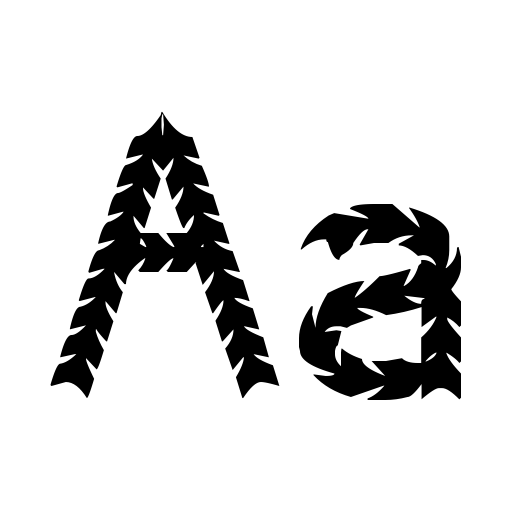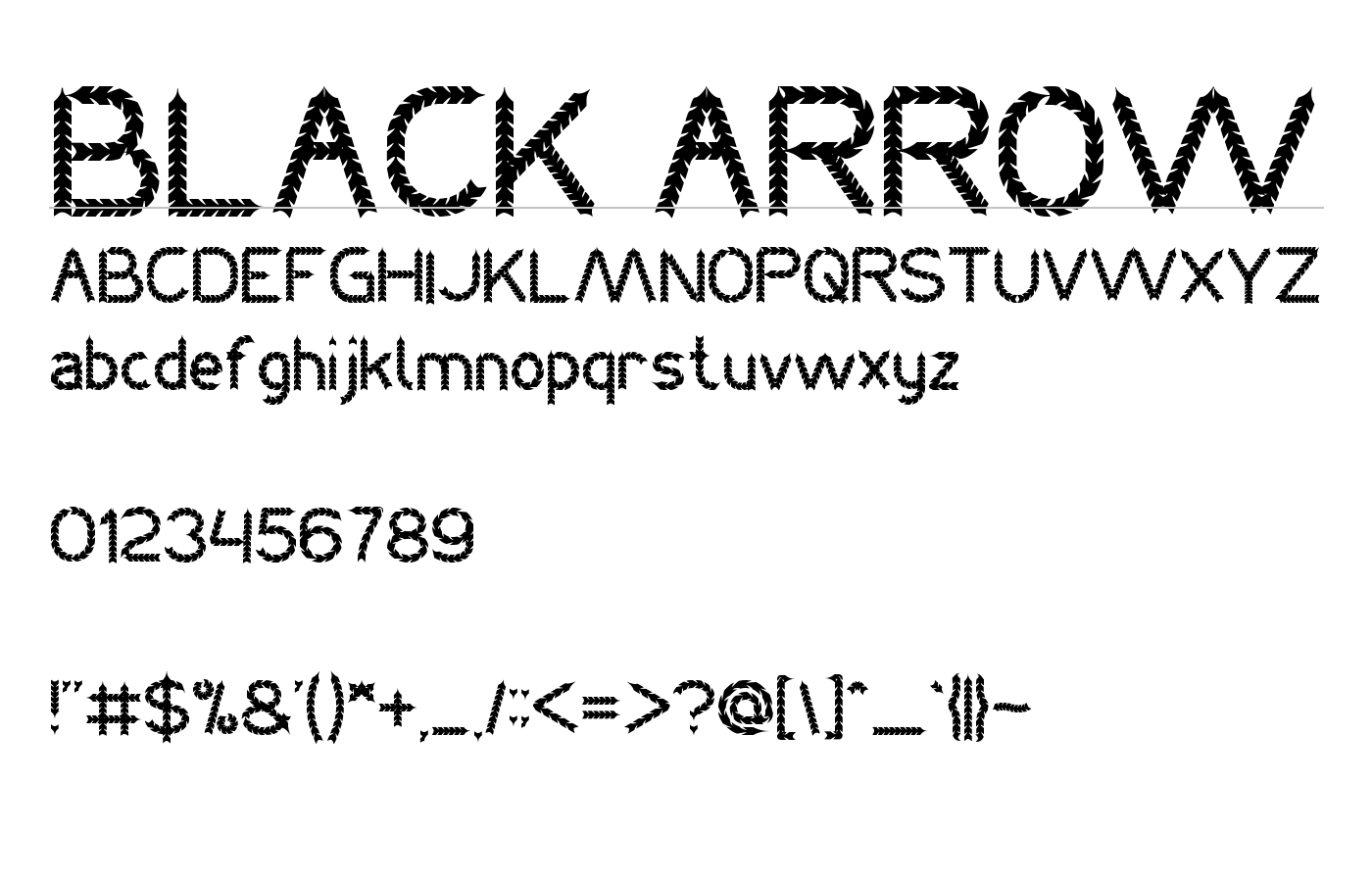
Black Arrow is a bold, decorative sans serif font characterized by its unique arrowhead pattern forming every letter, creating a striking and dynamic texture. With its strong geometric shapes, normal width, and medium x-height, it conveys a playful yet assertive personality, perfect for eye-catching headlines, logos, and branding that seek a modern, adventurous vibe. This font excels in display use where creativity and distinctiveness are key, making it ideal for sports, fashion, and lifestyle projects.
BLACK ARROW Font
About BLACK ARROW Font